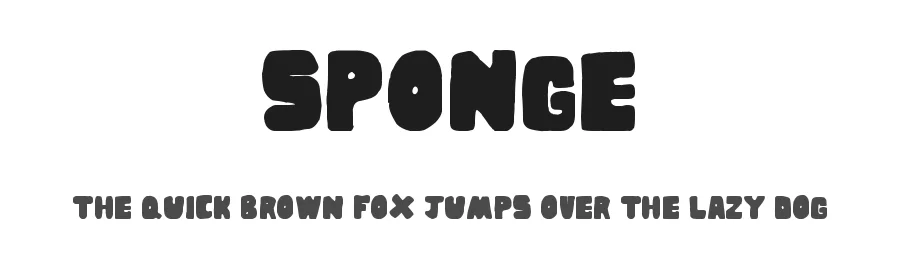
About Super Chunky Font
Introducing Super Chunky: The Font That Shouts Without Saying a Word
Super Chunky isnΒt your average font. ItΒs a bold statement piece designed to grab attention and leave a lasting impression. Forget subtlety, Super Chunky embraces chunky letterforms with unyielding thickness and unwavering confidence.
Super Chunky Font is a decorative font that shines as a display or heading face. Pair it with a clean sans-serif or serif font for body text β the contrast creates a clear hierarchy while the two styles stay balanced and easy to read.
Super Chunky Font
by fsuarez913